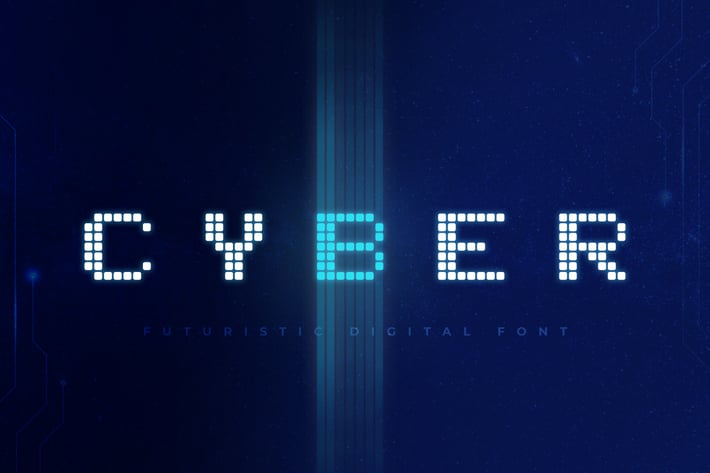
Cyber - Technology Font
Introducing Cyber - a digital technology font.
Perfect for technology, sci-fi, science and all kinds of futristic projects. Create science fiction posters & flyers, website headers, high-tech logos and so much more!